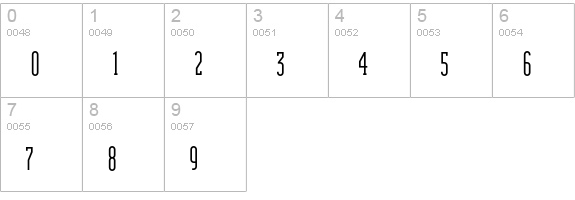
ModulaSerif Font Details
Discover the timeless elegance of ModulaSerif font, a sophisticated typeface that effortlessly blends traditional charm with modern appeal. With its sleek serifs and refined letterforms, ModulaSerif is perfect for conveying a sense of sophistication and professionalism in your designs. This versatile font is ideal for a wide range of projects, from branding and advertising to editorial design and beyond. What sets ModulaSerif apart is not only its classic design, but also its accessibility. This premium font is available for free download at FontsMarket.com, making it easy for designers and creatives to access this high-quality typeface without breaking the bank. Whether you're working on a personal project or a professional assignment, ModulaSerif offers a polished and professional look that is sure to elevate your design work. Embrace the timeless beauty and versatility of ModulaSerif font today, and see how it can enhance the visual impact of your projects. Download this exquisite typeface for free at FontsMarket.com and elevate your designs with its elegant charm.